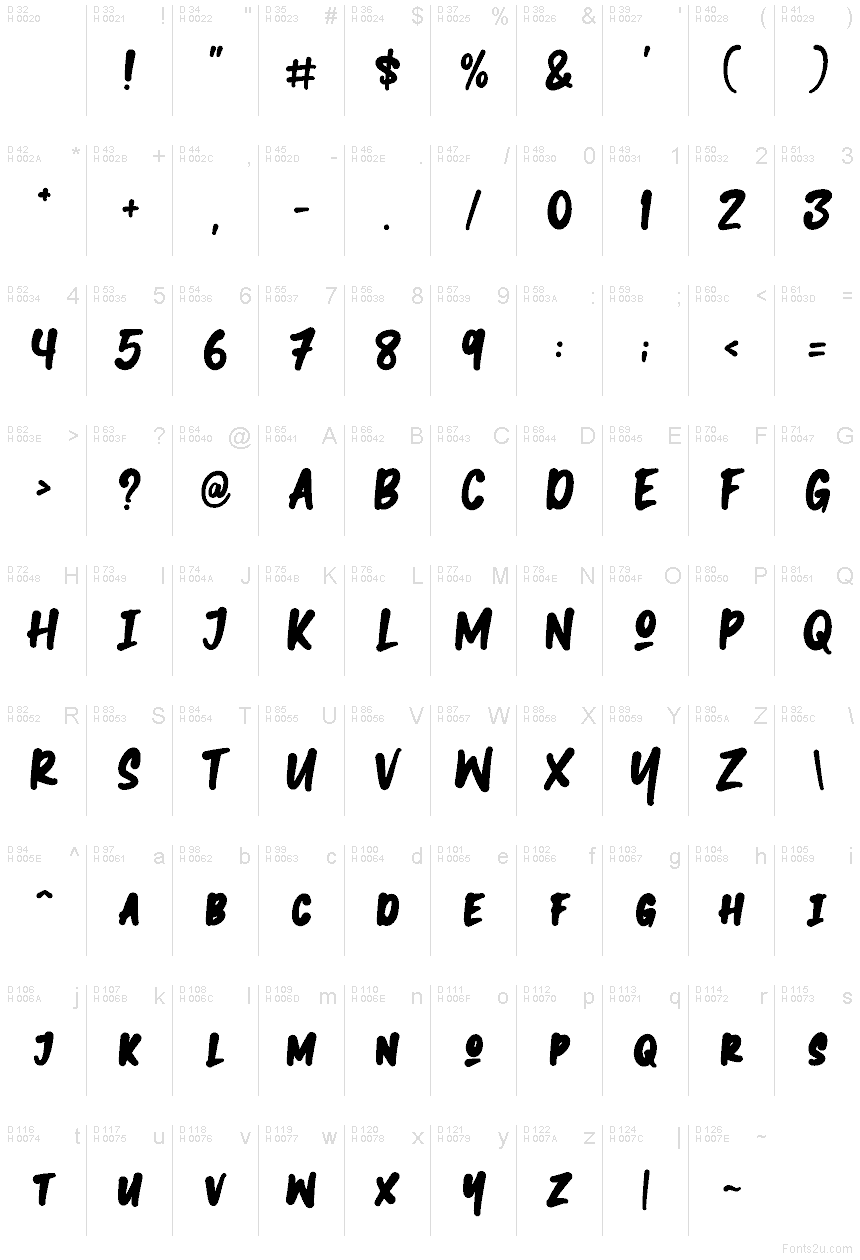
Slaro
Slaro font is a bold handwritten font by RantautypeStudio with an informal energetic style. Its characters are both expressive and casual, presenting an overall friendly vibe that overwhelms any viewer. Its bold characters are more visible when used in larger sizes since the viewers can properly notice its every curve.
It’s ideal for print media projects such as magazines, newspapers, or flyers as well as typographic logotypes, branding projects, product packaging designs, website headers and banner designs. Use it in posters or even store signs for better-looking results.